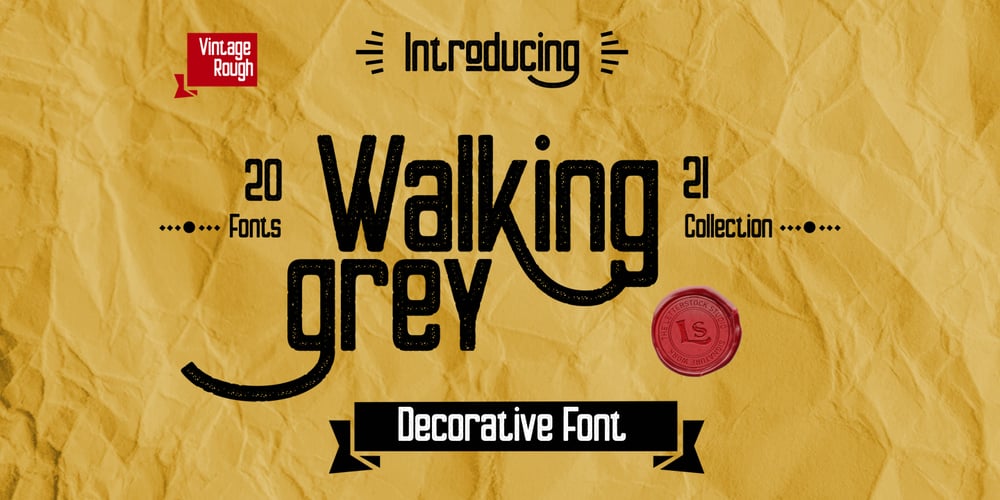
Walking Grey
Walking Grey font
Walking Grey Font Family was designed by Studio LetterStock and published by LetterStock. Walking Grey contains 1 styles and family package options. Walking grey Font This pair was inspired by the retro motorbike poster design that i saw on some coffee shop, It was crafted by hand specially to add natural handmade feeling in its brand identity than i make it clean with pentool. **Opentype features**Walking grey font has 213 character set included Walking grey Font is very good looking in logo, labels, product packaging, invitations, advertising and others. This fonts works with folowing languages: Afrikaans, Albanian, Asu, Basque, Bemba, Bena, Chiga, Cornish, Danish, English, Estonian, Filipino, Finnish, French, Friulian, Galician, German, Gusii, Indonesian, Irish, Italian, Kabuverdianu, Kalenjin, Kinyarwanda, Low German, Luo, Luxembourgish, Luyia, Machame, Makhuwa-Meetto, Makonde, Malagasy, Malay, Manx, Morisyen, North Ndebele, Norwegian Bokmål, Norwegian Nynorsk, Nyankole, Oromo, Portuguese, Romansh, Rombo, Rundi, Rwa, Samburu, Sango, Sangu, Scottish Gaelic, Sena, Shambala, Shona, Soga, Somali, Spanish, Swahili, Swedish, Swiss German, Taita, Teso, Vunjo, Zulu Thank you for using this font.LS